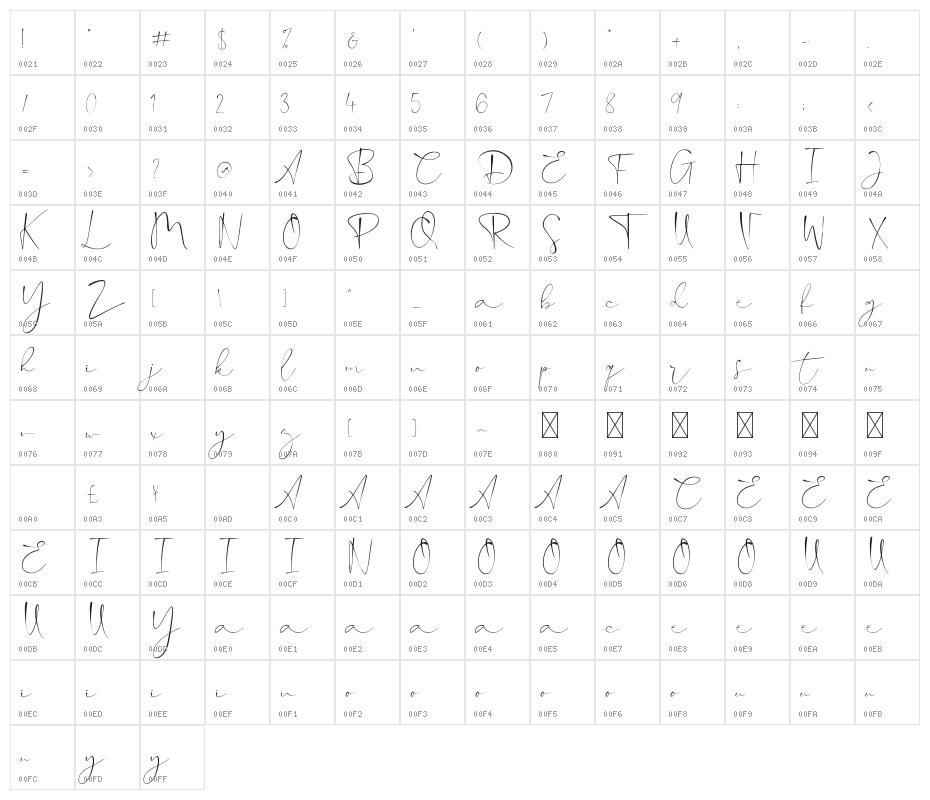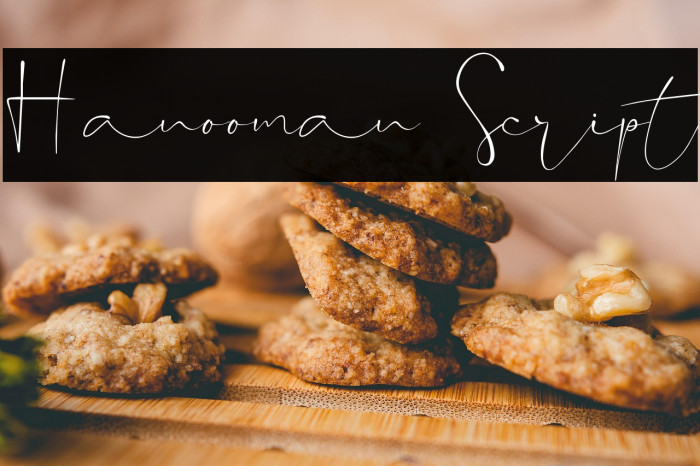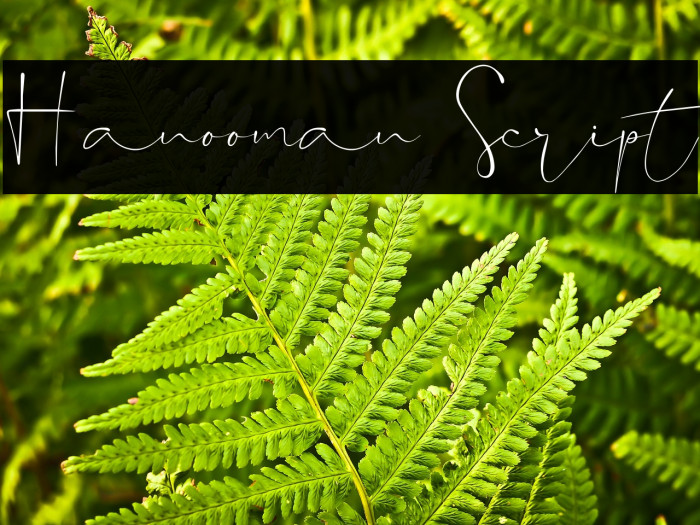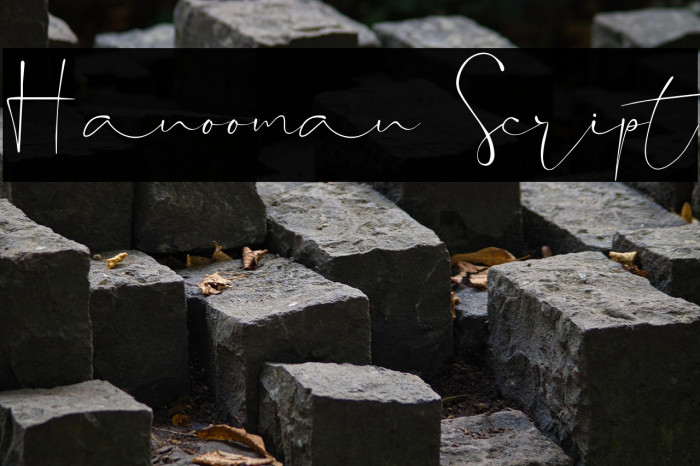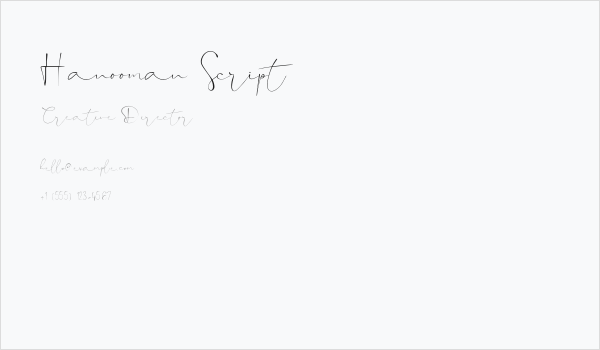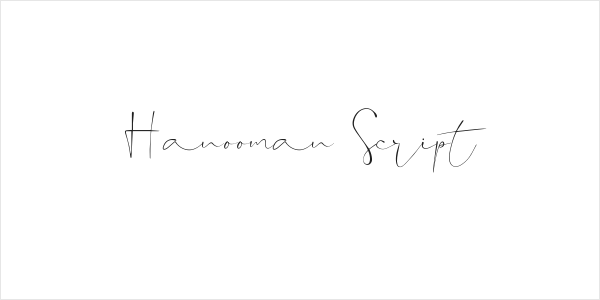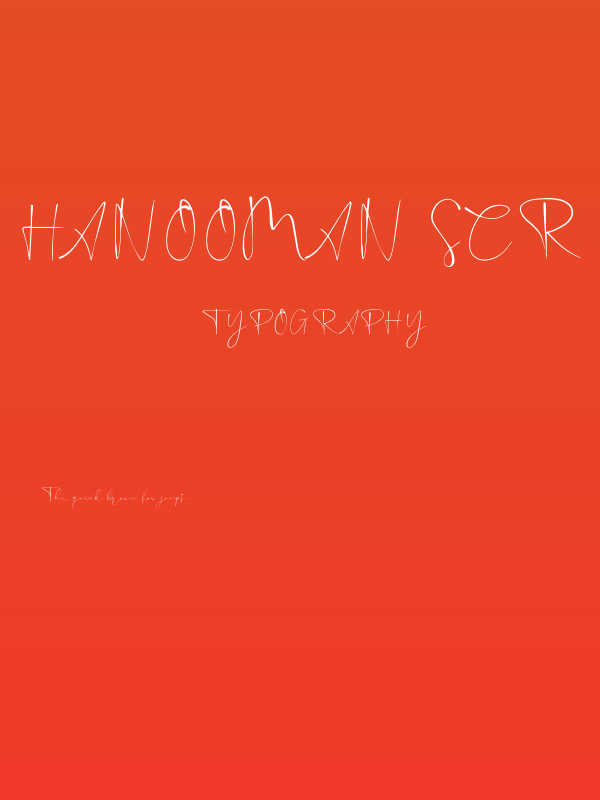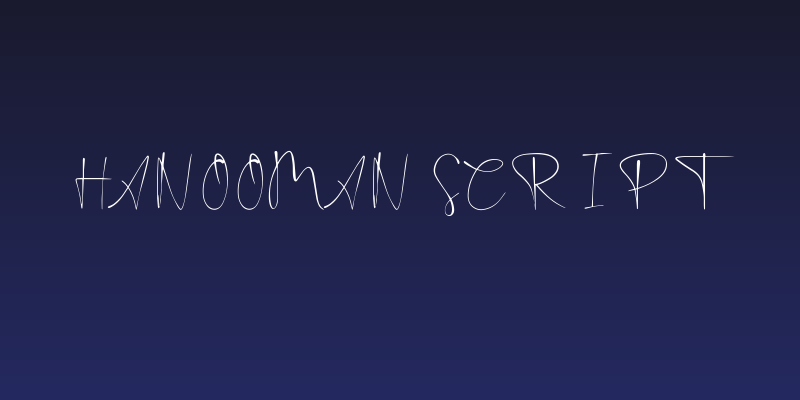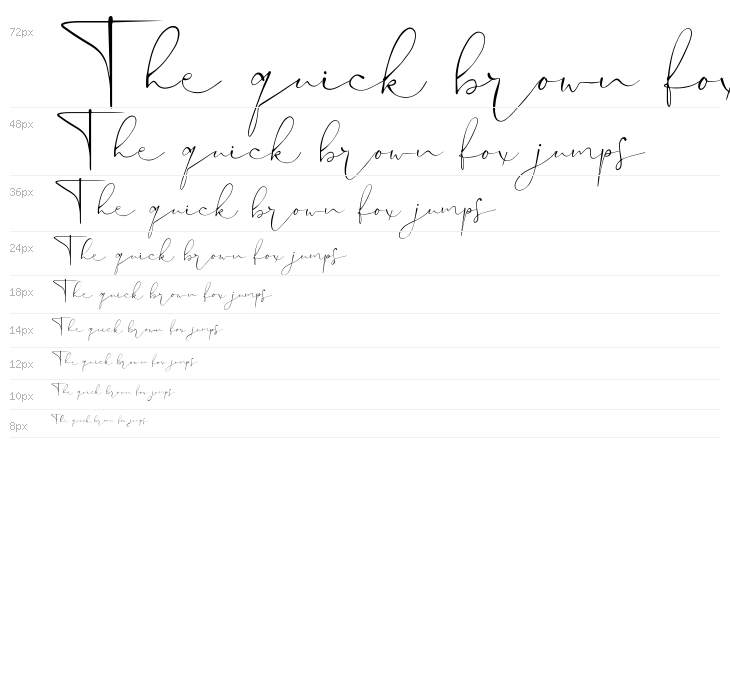
Hanooman Script Font
Hanooman Script Description
A delicate, flowing script font with a handwritten appearance, featuring thin strokes and elegant curves.
| Use Case | Logos, Headlines |
| Proposed Projects | Invitations, greeting cards, personal branding. |